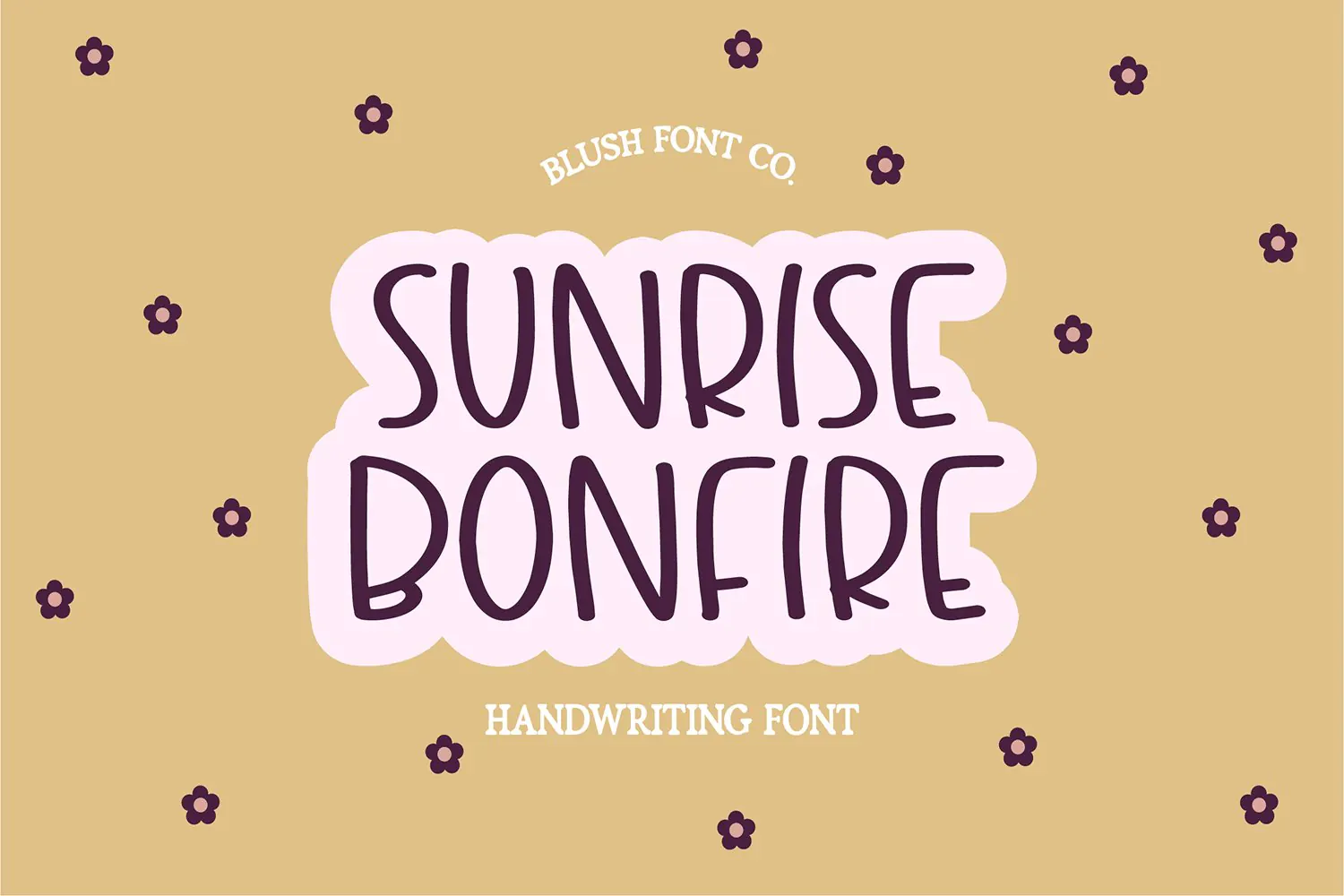
SUNRISE BONFIRE Cute Simple Handwriting Font
Sunrise Bonfire - Simple Handwriting Sans Font | Minimal Handwritten Font for Cricut, Canva, GoodNotes, Logos, Social Media
This simple handmade handwriting sans font is perfect for Cricut, Canva, GoodNotes, and modern design projects. Featuring clean lines and a natural hand-drawn feel, this font is ideal for digital planners, note-taking, logos, social media graphics, and everyday designs.
Designed to be minimal and easy to read, this font has a soft, handwritten look without feeling messy or overly stylized. It works beautifully for both home and professional use—whether you're creating aesthetic notes, branding materials, or clean, modern graphics.
This font is a great choice if you want a clean, versatile handmade sans style that feels modern, soft, and effortless across all your designs.